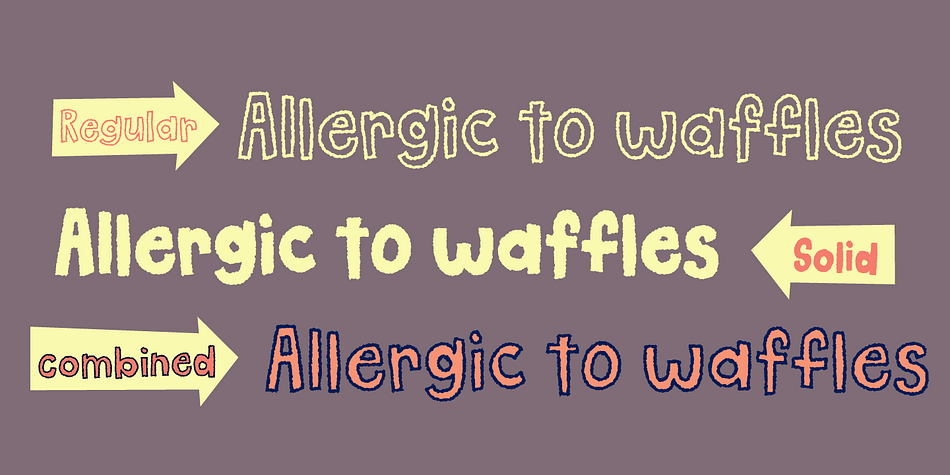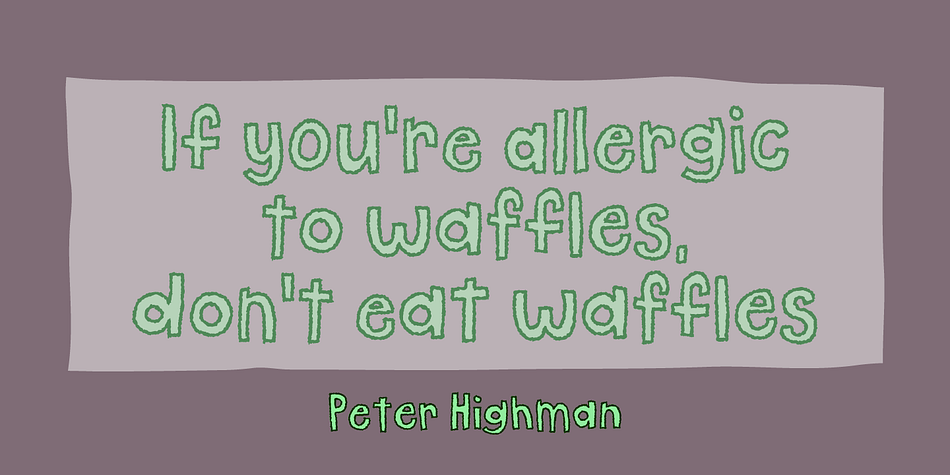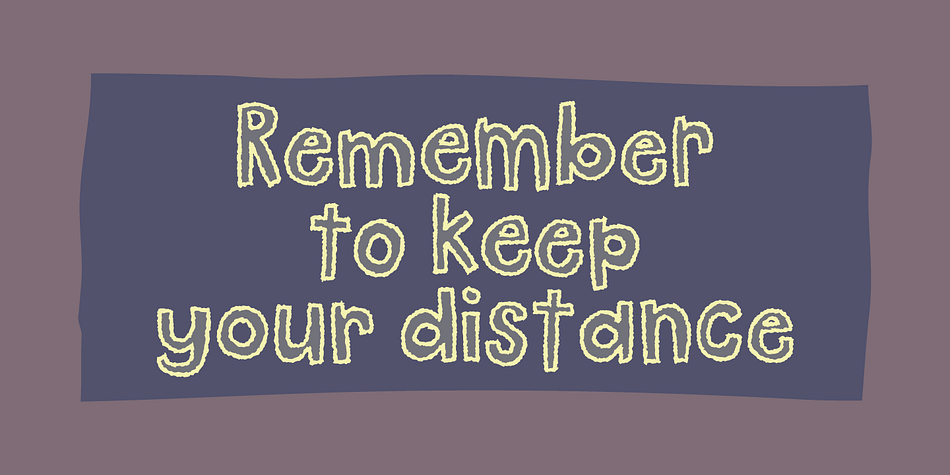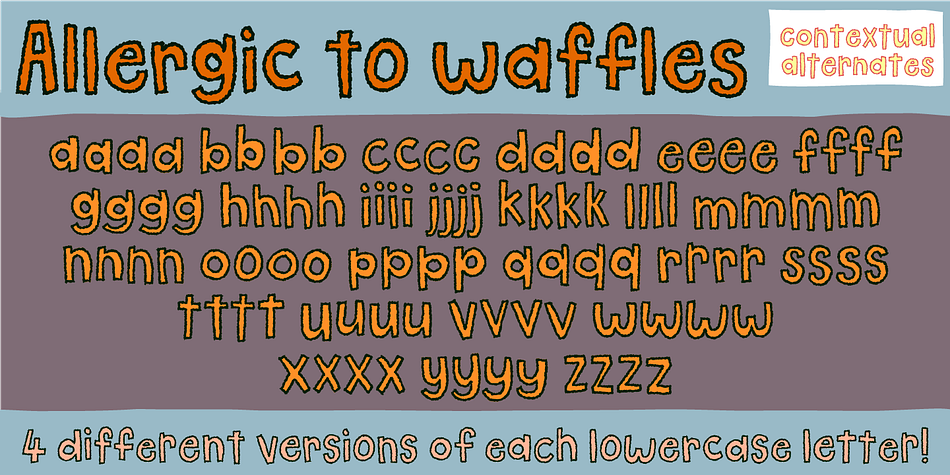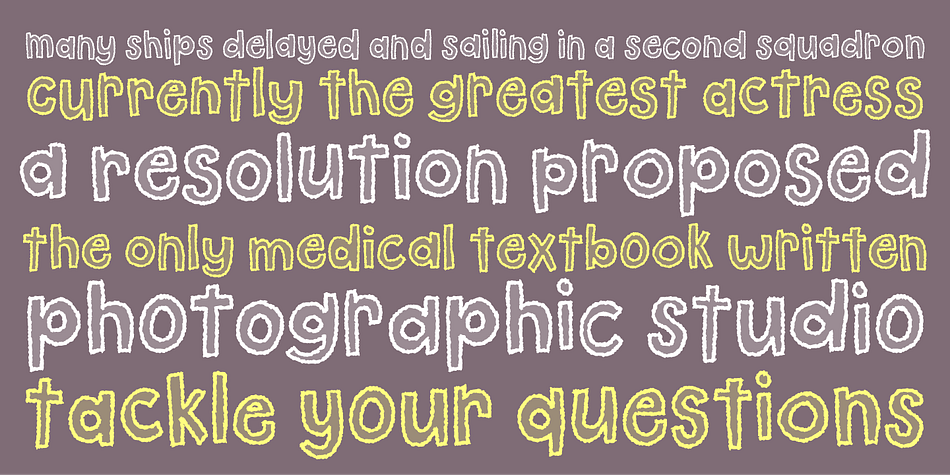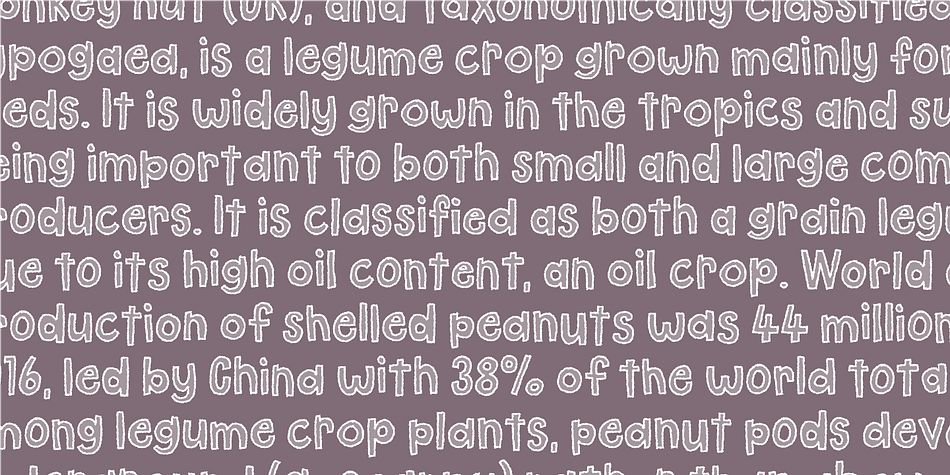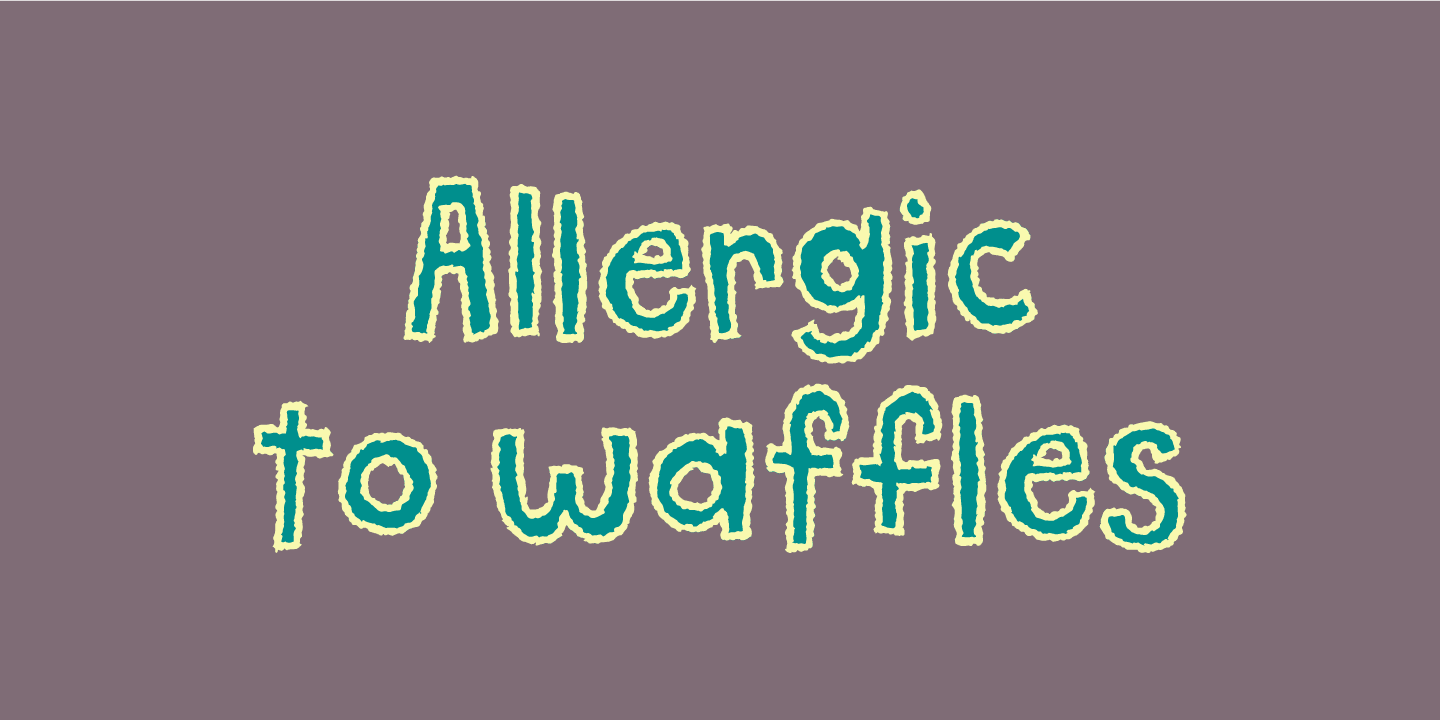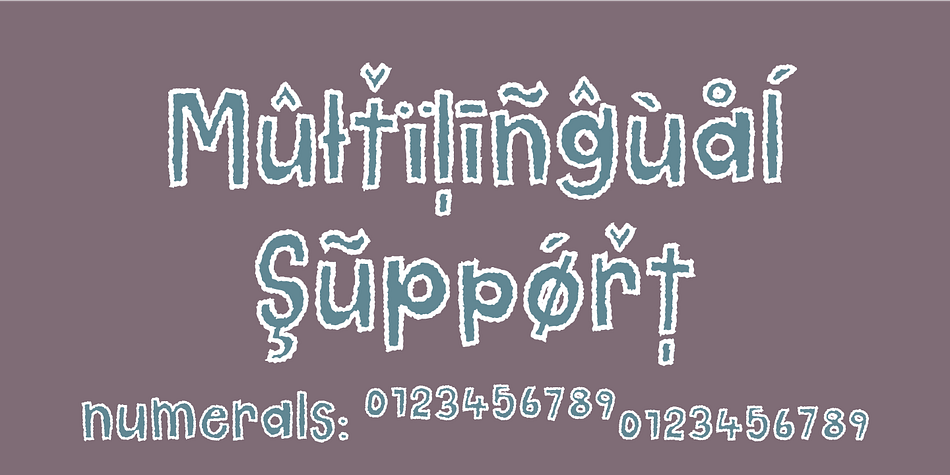
Designed by Jakob Fischer, Allergic to waffles is a hand display, hand drawn and kids font family. This typeface has two styles and was published by Pizzadude.dk.
Luckily, I am not allergic to waffles - but a guy named Ethan Tremblay is…and if you know the story about that guy, you know the name of this font is from!
What can I say? A handmade font full of quirkiness and a rough outline. Comes in both Regular (outline) and Solid. Use both versions as they are, or combine them.
I’ve added 4 different versions of each lowercase letter and multilingual support!